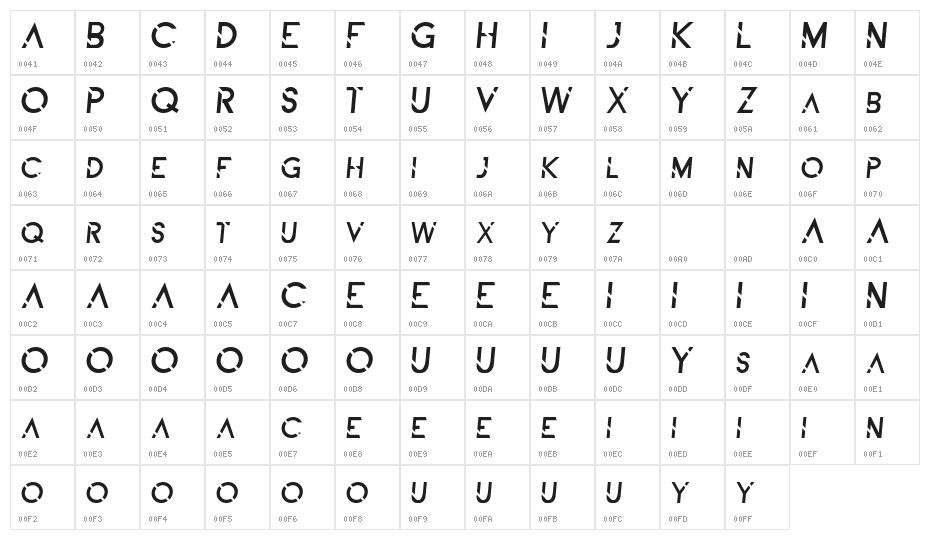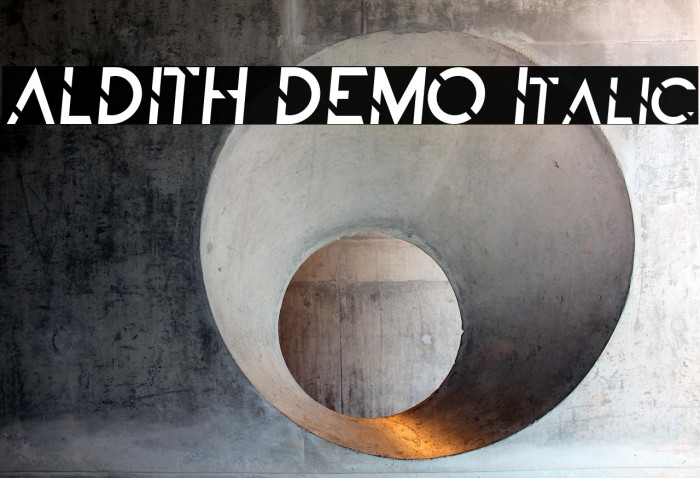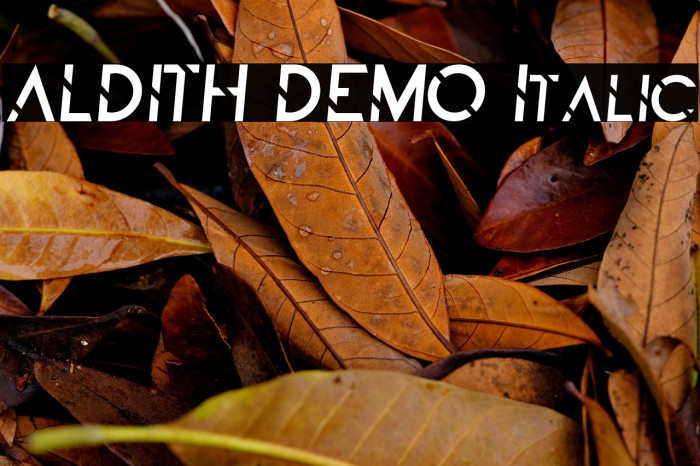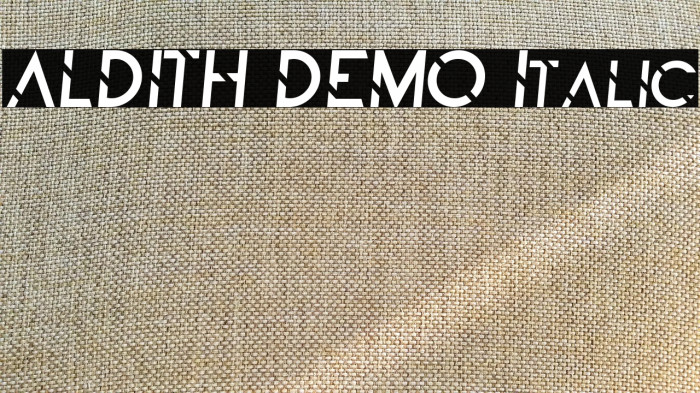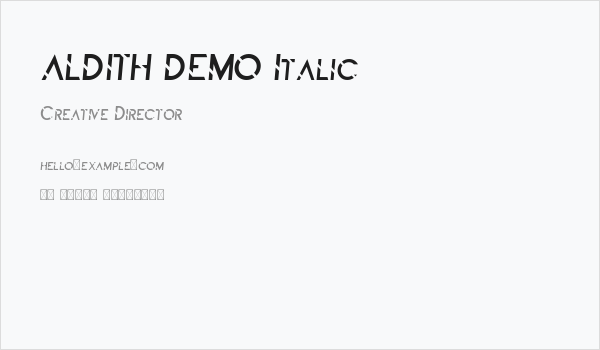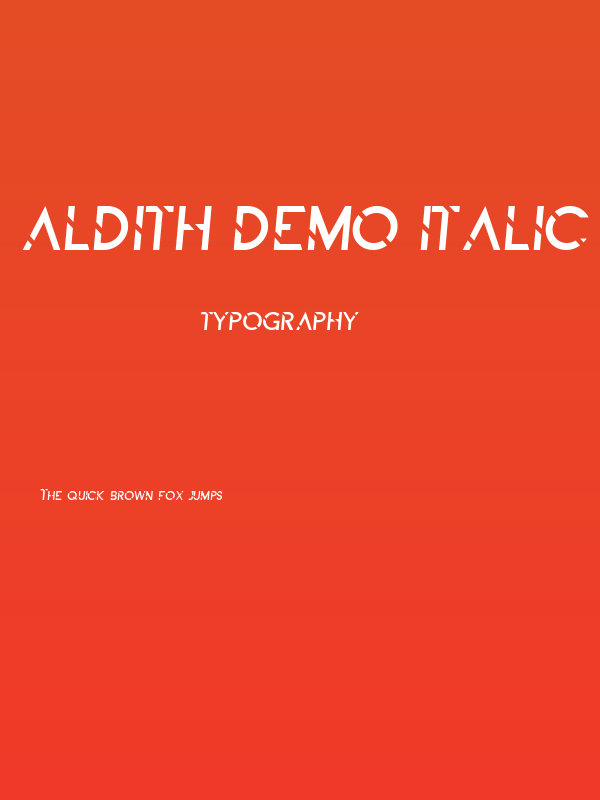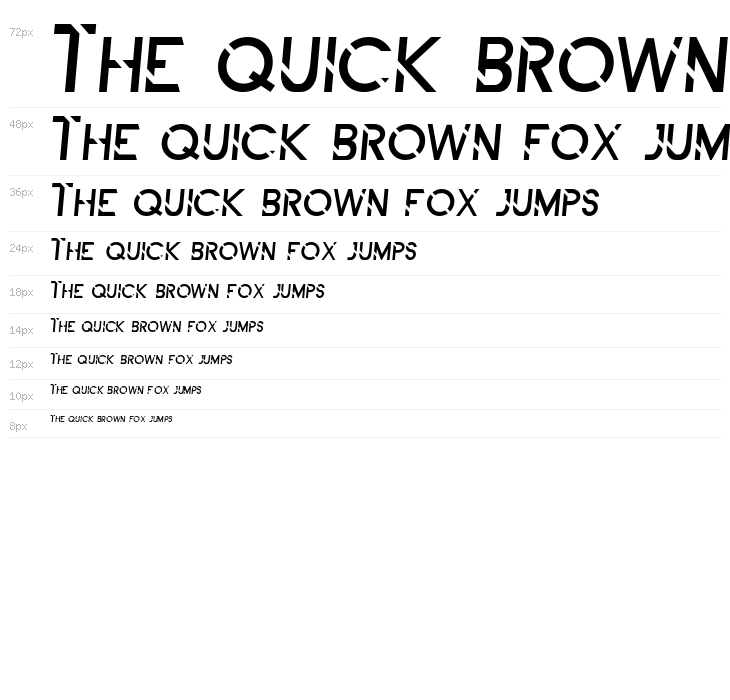
ALDITH DEMO Italic Font
ALDITH DEMO Italic Description
This font features a modern and geometric design with a distinct italic slant. Each character is crafted with sharp angles and clean lines, creating a futuristic and dynamic appearance. The uppercase letters are bold and striking, while the lowercase letters maintain a consistent style that complements the overall aesthetic. The numbers and special characters are designed to match the angular theme, ensuring a cohesive look across all elements. This font's unique style makes it suitable for projects that require a contemporary and edgy feel.
| Overall Style | Modern, Geometric |
| Proposed Projects | Ideal for branding, advertising, and editorial design where a modern and edgy look is desired. |